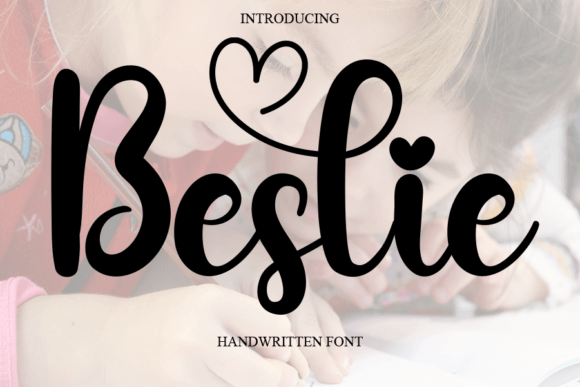
The Ultimate Bestie Font Review: Elevate Your Designs with Elegance
I’ll never forget the time I was working on a branding project for a luxury wedding planner. I had spent hours perfecting the color palette, selecting the perfect images, and crafting a cohesive visual identity. But, as I was about to finalize the logo design, I realized that I was stuck on one thing: the font. It just didn’t feel right. The client wanted something elegant, sophisticated, and modern, but everything I tried seemed to fall flat. That’s when I discovered the Bestie Font, and it changed the game.
What Makes Bestie Font So Special?
Bestie is an exquisite handwritten font, masterfully designed to become a true favorite. It maintains its classy calligraphic influences while feeling contemporary and fresh. Here are some things I love about Bestie:
- ✨ Elegant and sophisticated, perfect for high-end branding and luxury designs
- 💫 Beautifully crafted with attention to detail, giving it a unique and exclusive feel
- 🎨 Versatile and adaptable, suitable for a wide range of design projects
Honest Review: The Not-So-Perfect Font
No font is perfect, and Bestie is no exception. Here are a few quirks to keep in mind:
- 🤔 Some users may find the font a bit too ornate or over-the-top for certain projects
The Story Behind Bestie Font
Bestie was designed by a talented typographer who wanted to create a font that would evoke the feeling of luxury and sophistication. Inspired by classic calligraphy and modern script fonts, Bestie was crafted with attention to detail and a passion for beautiful design.
| Is Bestie suitable for body text? | While Bestie is beautiful, it’s best suited for headlines and titles. For body text, you may want to choose a more legible font. |